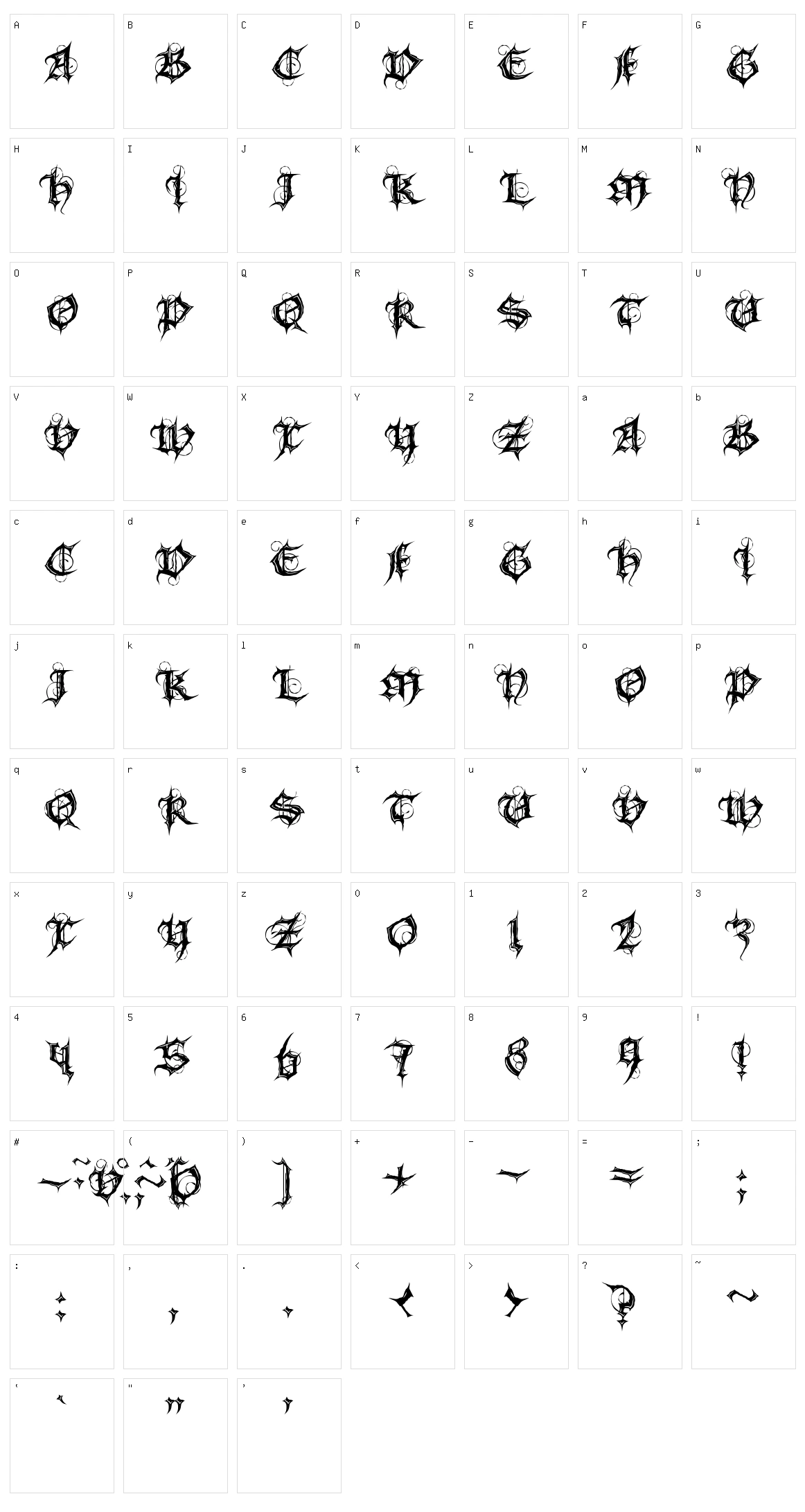
MB Gothic Spell
Designed by: Irina ModBlackmoon
MB Gothic Spell - TTF Font, based on traditional gothic capital letter shapes with some metal infuences and extra ornaments [Hand-drawing + Illustrator].
Incl. English letters and Numbers, some most common signs, some letters from nordic languages.